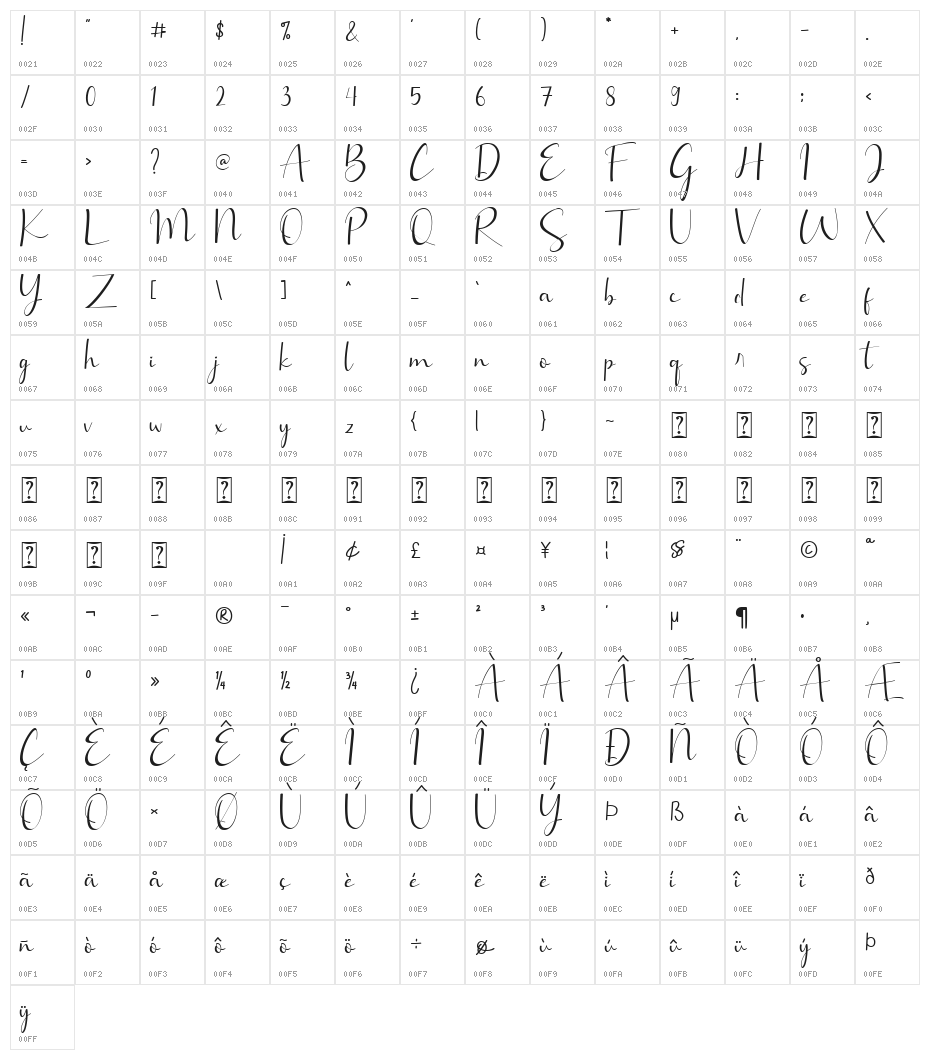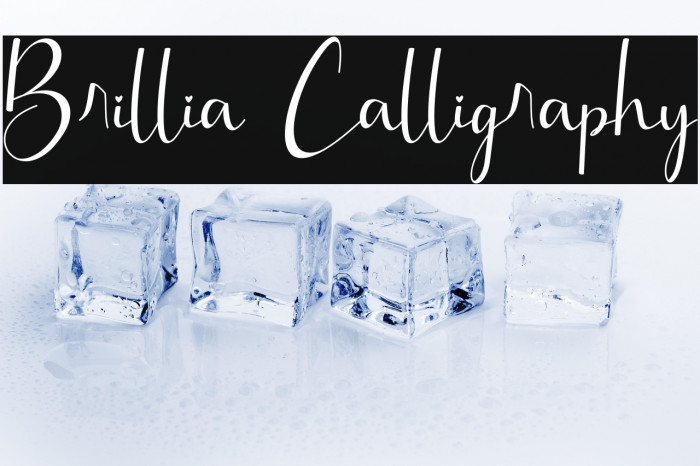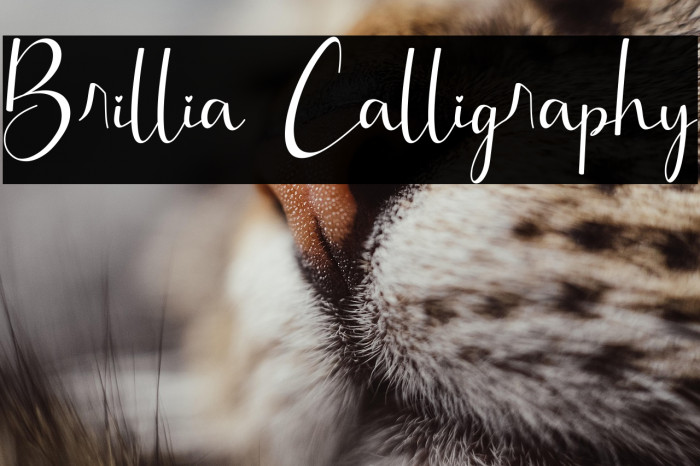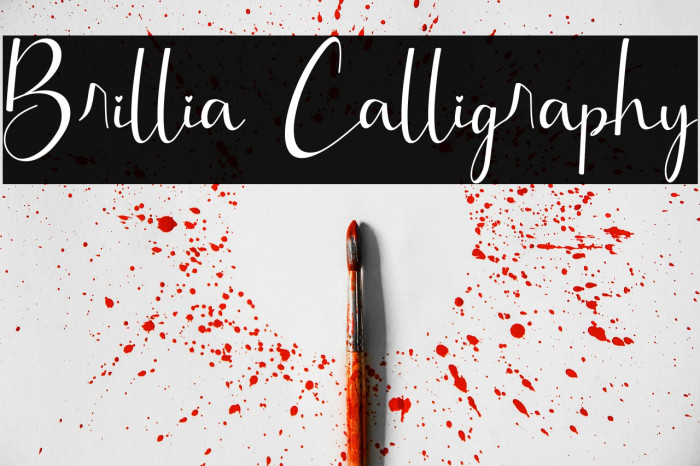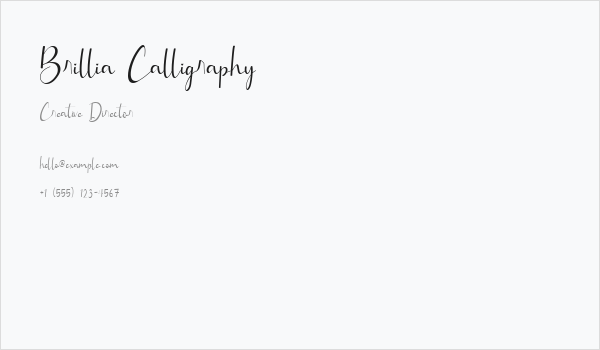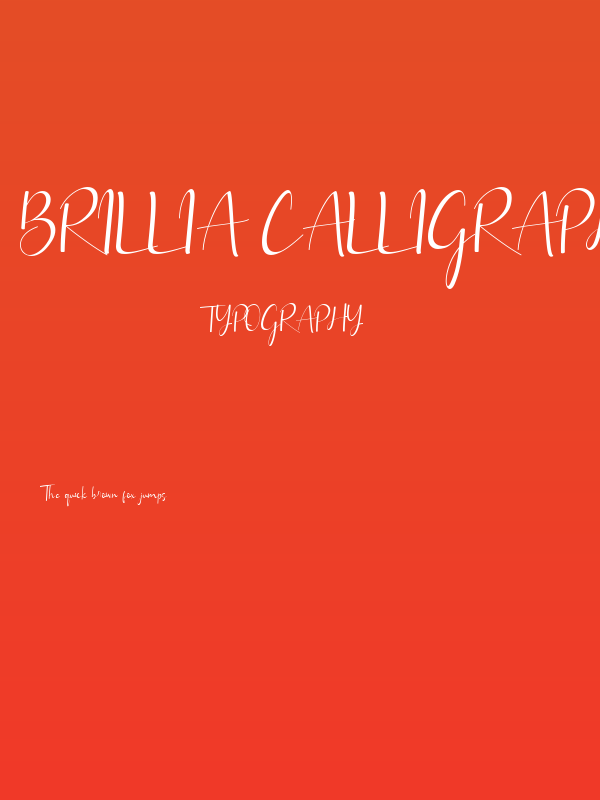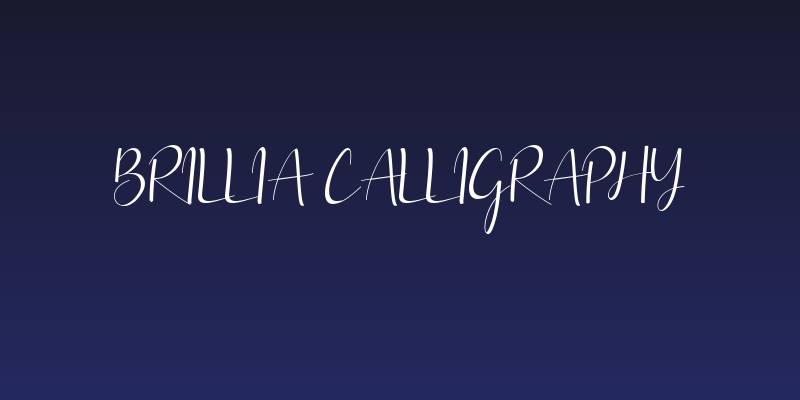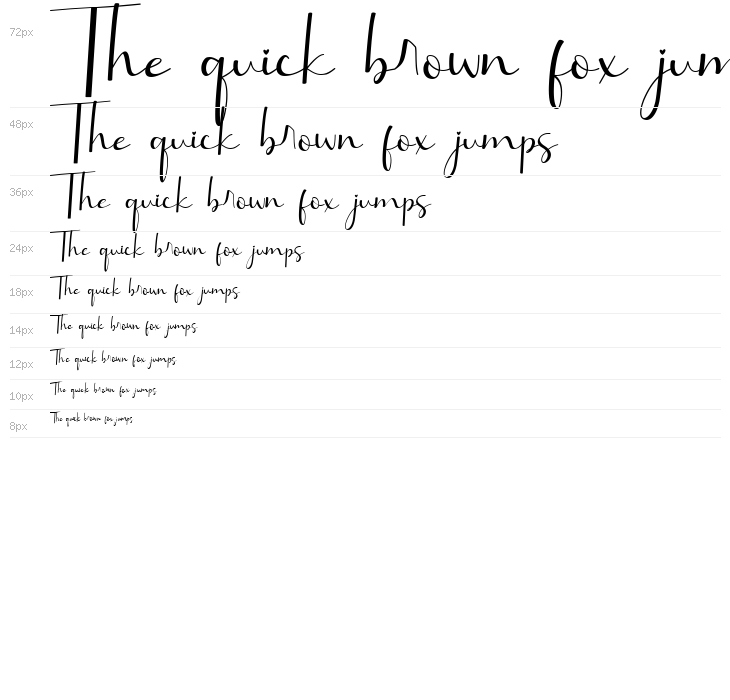
Brillia Calligraphy Font
Brillia Calligraphy Description
This elegant calligraphy font features a flowing, cursive style with a modern twist. The uppercase letters are tall and slender, with graceful loops and swashes that add a touch of sophistication. The lowercase letters maintain a consistent flow, with smooth connections and a slightly more compact form. Numbers are stylishly integrated, maintaining the font's overall aesthetic. Special characters are thoughtfully designed, ensuring they complement the letterforms. This font exudes a sense of elegance and creativity, making it suitable for a variety of design projects.